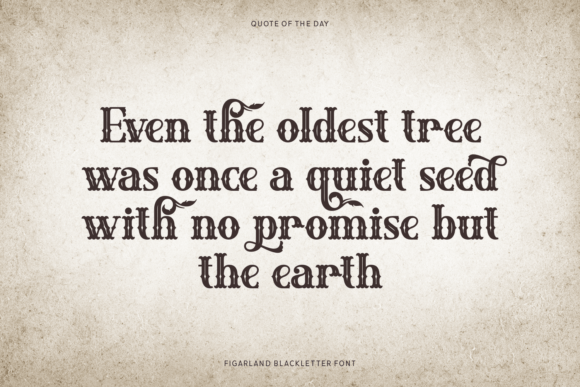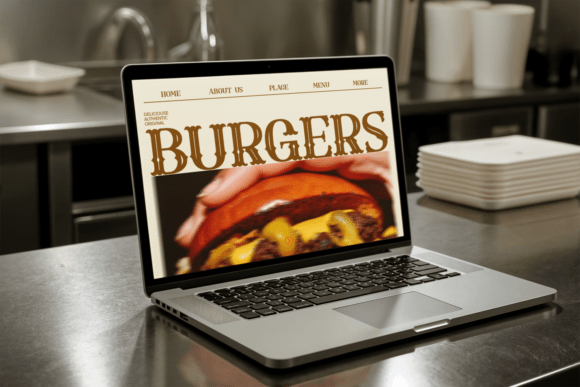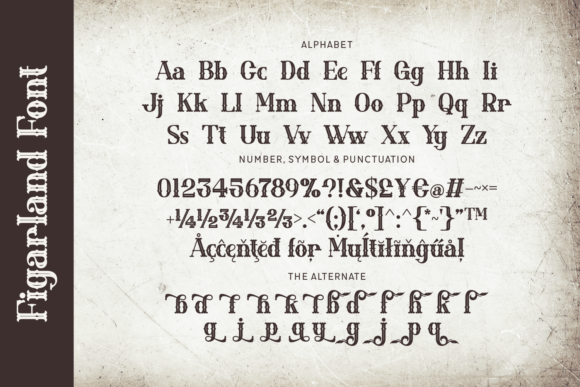
Introducing Figarland Font: A Whimsical Vintage Blackletter Typeface
Are you looking for a typeface that adds a touch of fantasy and charm to your designs? Look no further than Figarland Font, a whimsical vintage blackletter typeface that brings a magical, handcrafted feel to your creative projects. With its playful swashes and ornate flourishes, Figarland is perfect for designers and crafters who want to add a unique and imaginative touch to their work.
The Inspiration Behind Figarland
Figarland Font is a masterful blend of classic gothic structure and unique decorative curves. Its design is inspired by the ornate and intricate lettering found in vintage storybooks, logos, and packaging. The font’s creator aimed to capture the essence of a bygone era, while infusing it with a playful and modern twist. The result is a typeface that is both nostalgic and fresh, perfect for designers who want to add a touch of whimsy to their work.
Key Features of Figarland Font
So, what makes Figarland Font so special? Here are just a few of its key features:
- Whimsical swashes: Figarland Font features playful swashes that add a touch of elegance and sophistication to your designs.
- Ornate flourishes: The font’s ornate flourishes bring a level of intricacy and detail to your designs, making them truly stand out.
- Classic gothic structure: Figarland Font’s classic gothic structure provides a solid foundation for your designs, while its unique decorative curves add a touch of personality.
- Handcrafted feel: Figarland Font has a distinctly handcrafted feel, making it perfect for designers who want to add a touch of warmth and personality to their work.
Use Cases for Figarland Font
So, what can you use Figarland Font for? The possibilities are endless, but here are a few ideas to get you started:
- Storybook titles: Figarland Font is perfect for creating eye-catching storybook titles that will transport your readers to a magical world.
- Logos and branding: The font’s unique blend of classic and modern elements makes it ideal for logos and branding that needs to stand out.
- Packaging design: Figarland Font’s ornate flourishes and whimsical swashes make it perfect for packaging design that needs to make a statement.
- Creative projects: Whether you’re working on a creative project, such as a handmade craft or a DIY tutorial, Figarland Font is a great choice for adding a touch of personality and whimsy.
Tips for Using Figarland Font
Here are a few tips for getting the most out of Figarland Font:
- Experiment with different sizes: Figarland Font looks great in a variety of sizes, from large and bold to small and delicate.
- Play with swashes and flourishes: Don’t be afraid to experiment with the font’s swashes and flourishes to add a touch of personality to your designs.
- Pair with other fonts: Figarland Font pairs well with a variety of other fonts, so don’t be afraid to experiment with different combinations.
In conclusion, Figarland Font is a unique and imaginative typeface that is perfect for designers and crafters who want to add a touch of fantasy and charm to their work. With its whimsical swashes, ornate flourishes, and classic gothic structure, Figarland Font is a versatile typeface that can be used for a wide range of creative projects. Whether you’re working on a storybook title, logo, packaging design, or creative project, Figarland Font is a great choice for adding a touch of personality and whimsy.